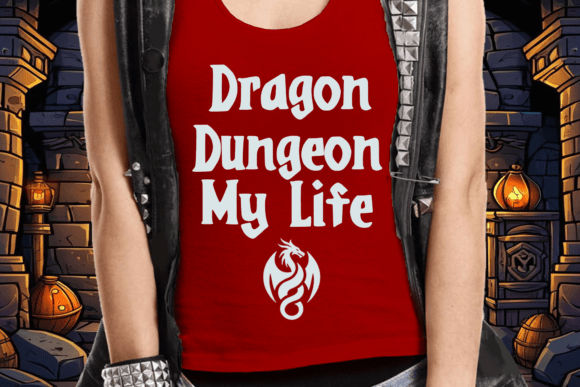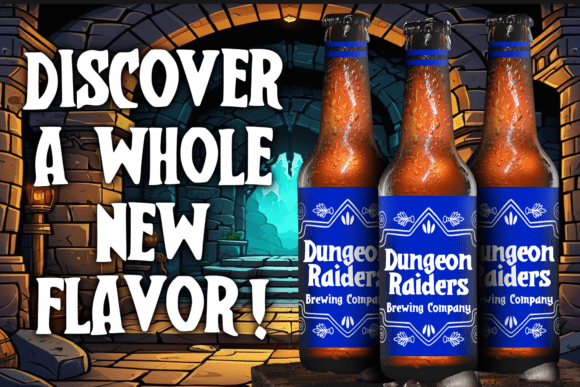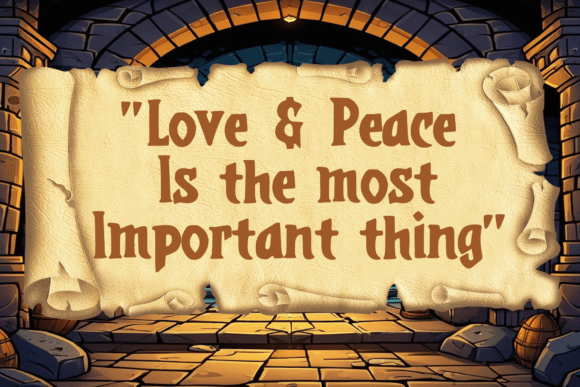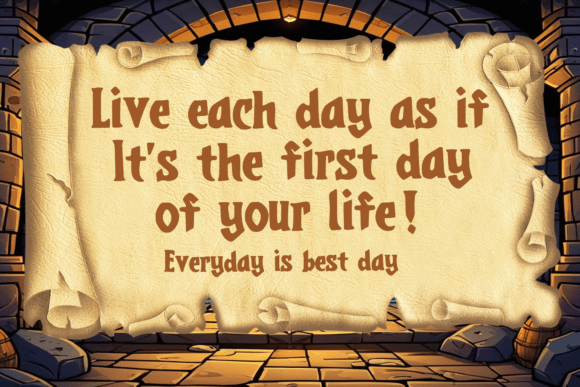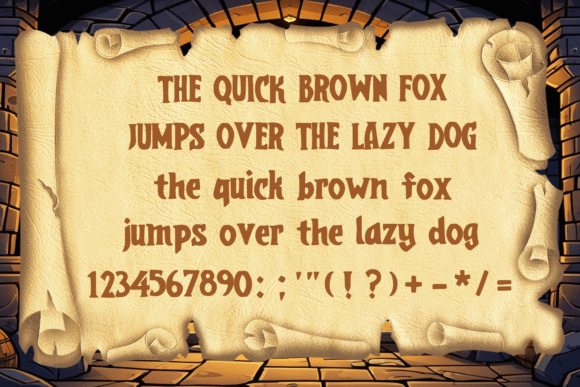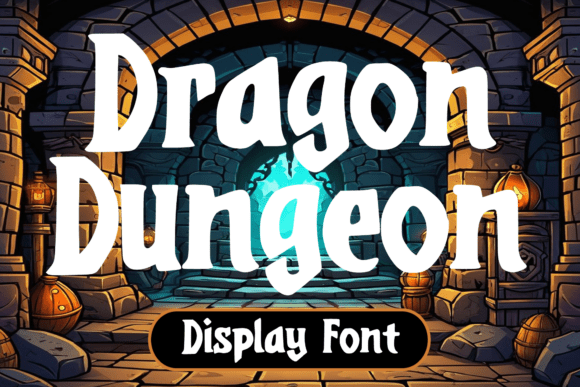
Unleash Your Creativity with Dragon Dungeon Font: A Playful Medieval-Themed Font
Are you a designer, crafter, or simply someone who loves the medieval era? Look no further! Introducing Dragon Dungeon Font, a fun and playful antique medieval-themed font that’s perfect for bringing a touch of nostalgia and fantasy to your designs. Inspired by 90s tabletop games and fantasy cartoons, this font is sure to transport you and your audience to a world of magic and adventure.
What is Dragon Dungeon Font?
Dragon Dungeon Font is a unique and versatile typeface that’s designed to evoke the spirit of medieval times. With its intricate details and ornate lettering, this font is reminiscent of old-school fantasy games, cartoons, and literature. Whether you’re creating a kids’ book, designing a t-shirt, or crafting a poster, Dragon Dungeon Font is the perfect choice for adding a touch of whimsy and charm to your project.
One of the best things about Dragon Dungeon Font is its incredible versatility. You can use it for a wide range of projects, from:
- T-shirts and apparel: Add a touch of medieval flair to your designs and make your tees stand out.
- Kids’ book designs: Create engaging and imaginative stories that transport young readers to a world of fantasy.
- Game designs: Add a touch of nostalgia and authenticity to your games with a font that’s inspired by classic tabletop games.
- Greeting cards and invitations: Make your cards and invites stand out with a unique and eye-catching font.
- Stickers and posters: Add a touch of medieval charm to your stickers and posters and make them hard to resist.
Why Choose Dragon Dungeon Font?
So why choose Dragon Dungeon Font over other fonts? Here are just a few reasons:
- Unique and eye-catching: This font is sure to grab attention and make your designs stand out.
- Versatile: Use it for a wide range of projects, from kids’ books to game designs.
- High-quality: This font is designed to be clear and legible, even at small sizes.
Design Tips and Inspiration
To get the most out of Dragon Dungeon Font, here are a few design tips and inspiration ideas:
- Pair it with bold colors: Dragon Dungeon Font looks amazing with bright, bold colors that evoke the spirit of medieval times.
- Add illustrations: This font is perfect for pairing with illustrations of dragons, castles, and other medieval-themed imagery.
- Experiment with textures: Add a touch of authenticity to your designs by experimenting with textures that resemble parchment, wood, or stone.